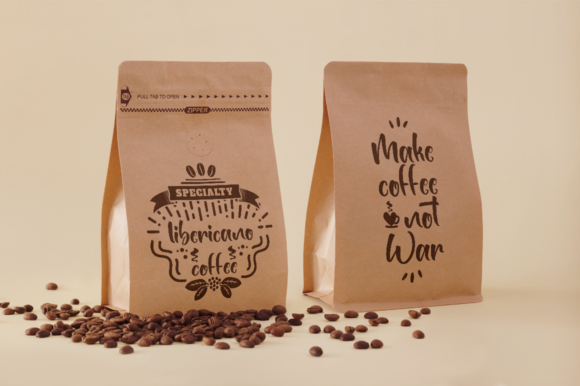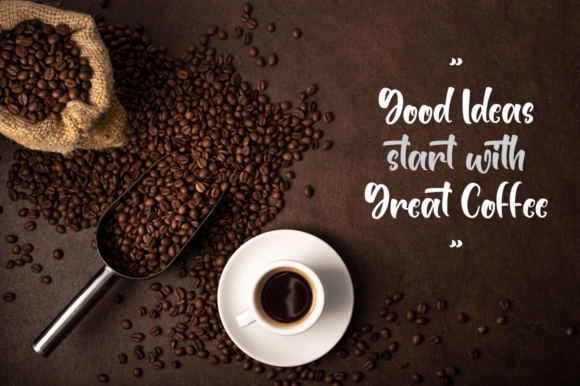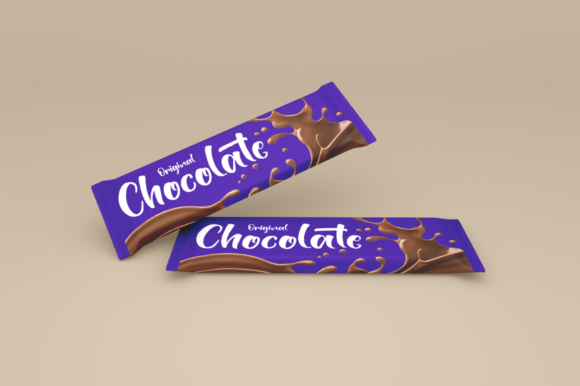
Introduction to Reymond Font
Reymond is a lovely and timeless handwritten font.
Key Features of Reymond Font
Why Choose Reymond Font?
Reymond Font offers exceptional quality and versatility, making it a valuable addition to your design toolkit. Whether you’re creating for personal projects or commercial use, Reymond Font delivers professional results.